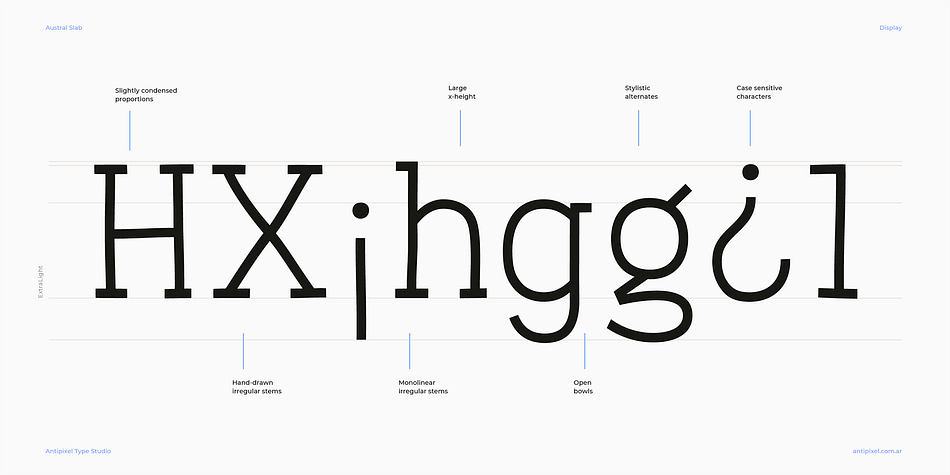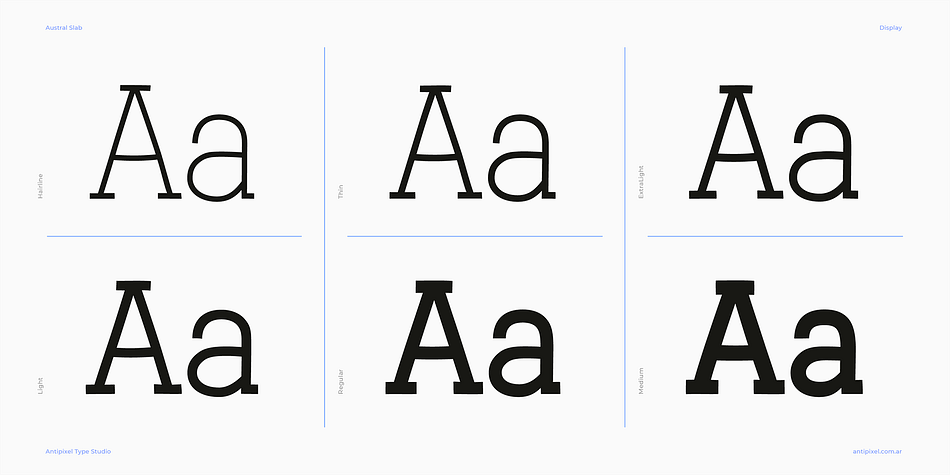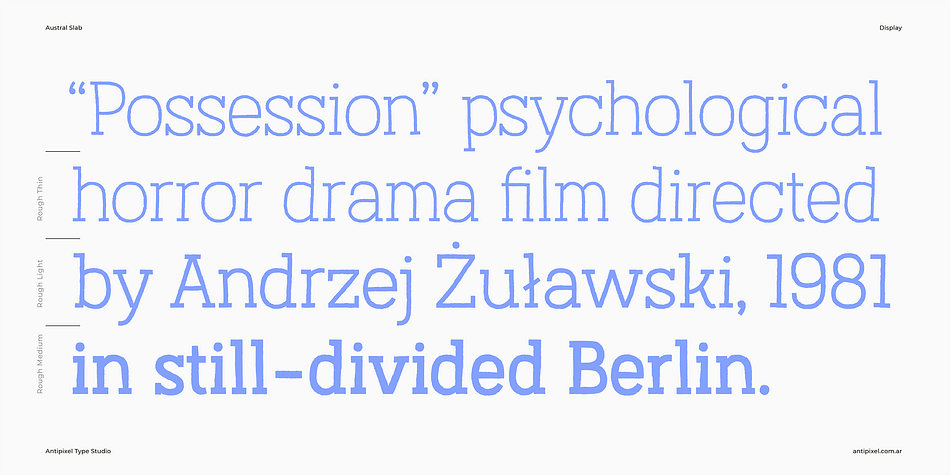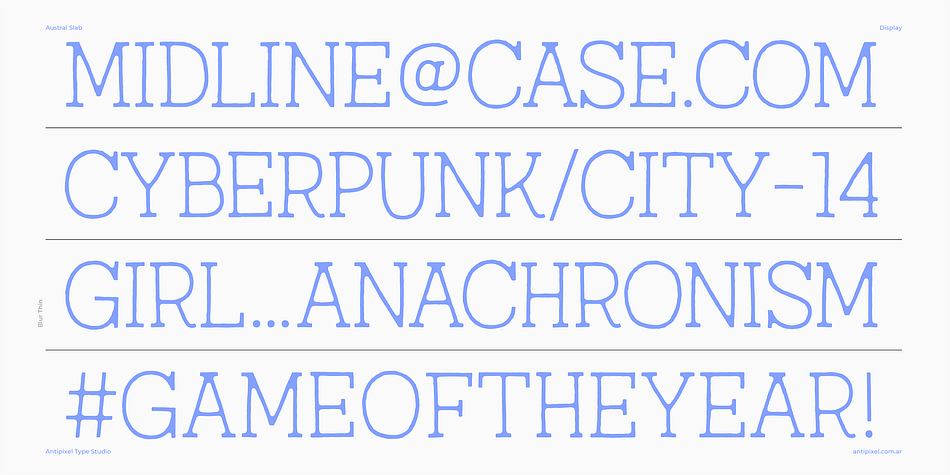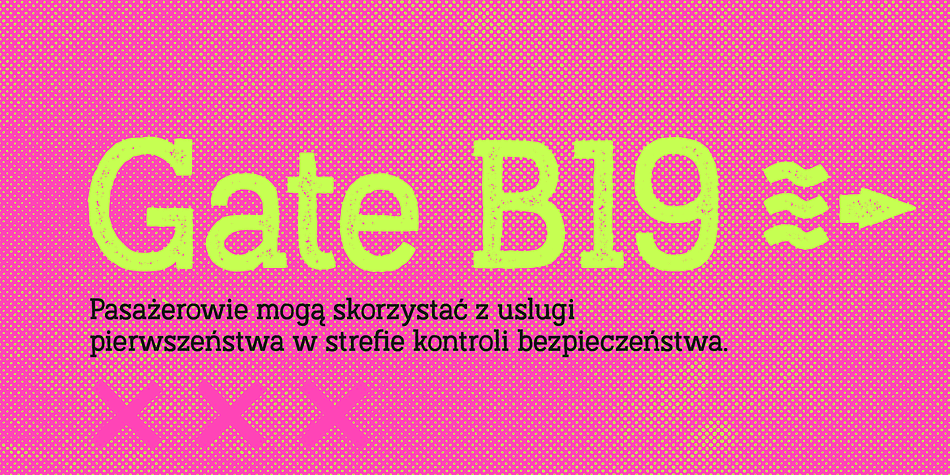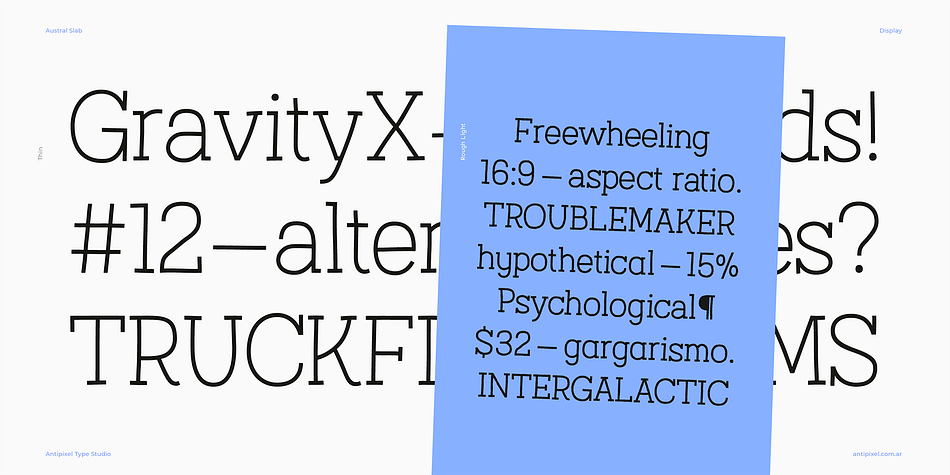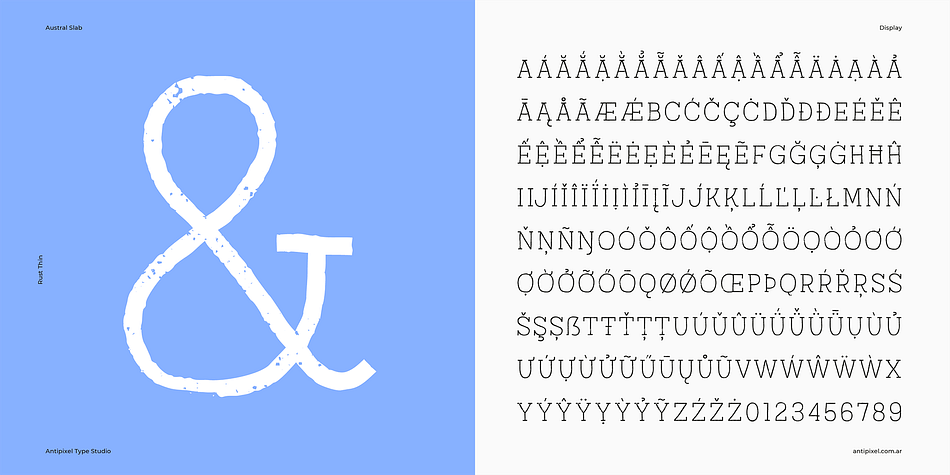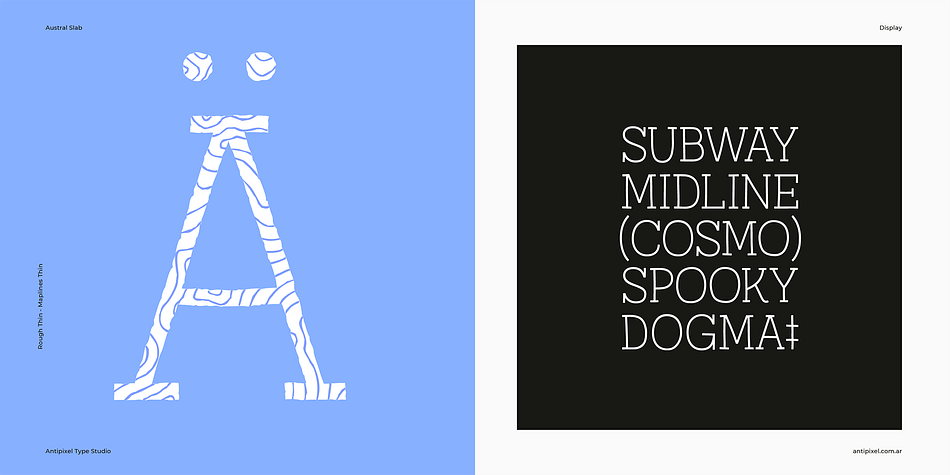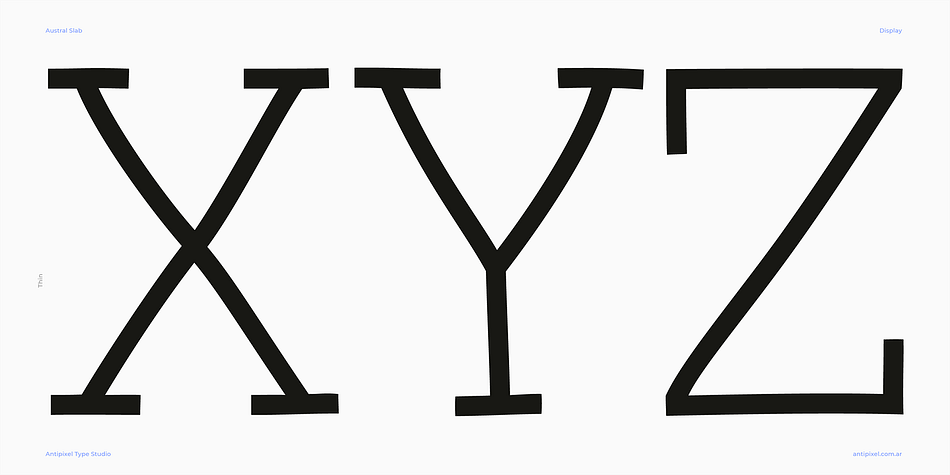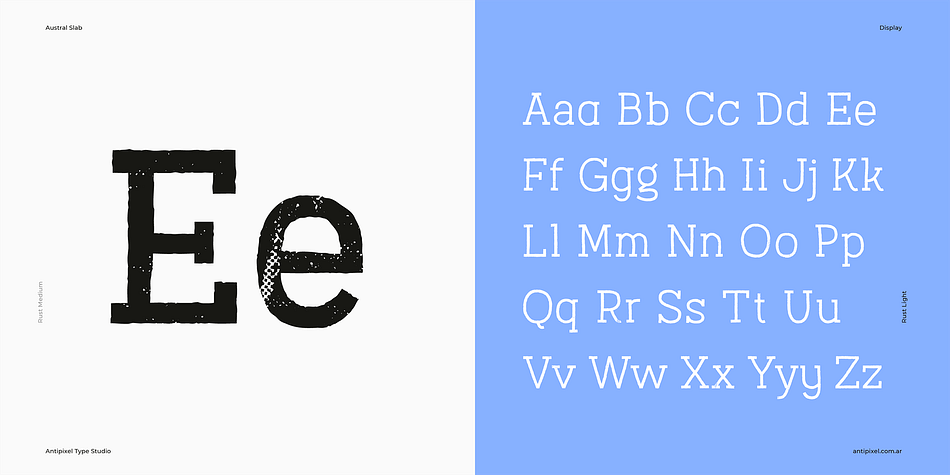
Designed by Julia Martinez Diana, Austral Slab is a display slab font family. This typeface has eighteen styles and was published by Antipixel.
Austral Slab is a hand-drawn layered font designed by Antipixel, with unique textures & styles that combine giving your work a distinctive impression. This font comes in three weights, Regular, Light & Thin, with irregular outlines and uneven/crooked strokes, giving your work more personality and making it exclusive and powerful.
For this same reason it can be used in a vast variety of projects, such as logos & branding, stationery, book covers, magazine design, clothing prints & tags, packaging, animated videos, and many more!
Austral Slab has three sets of alphabets in uppercase and lowercase to avoid repeating the same character pattern, and giving the font a more natural handwritten feel. This is included in the Open-Type Contextual Alternates, which applies an automatic substitution of glyphs as long as the Open-Type features are activated. Also, Austral Slab offers other Open-Type features such as Stylistic Alternates, Ligatures, Discretionary Ligatures, Fractions, Superscript, Subscript, Denominator, Numerator, Scientific Inferiors & Kerning.
This font has a very large glyph coverage and can be used in a wide range of languages, including English, Spanish, Italian, French, German, Polish, Czech, Vietnamese, Finnish, Icelandic, among many others.
Style | Display Slab |
Designer | Julia Martinez Diana |